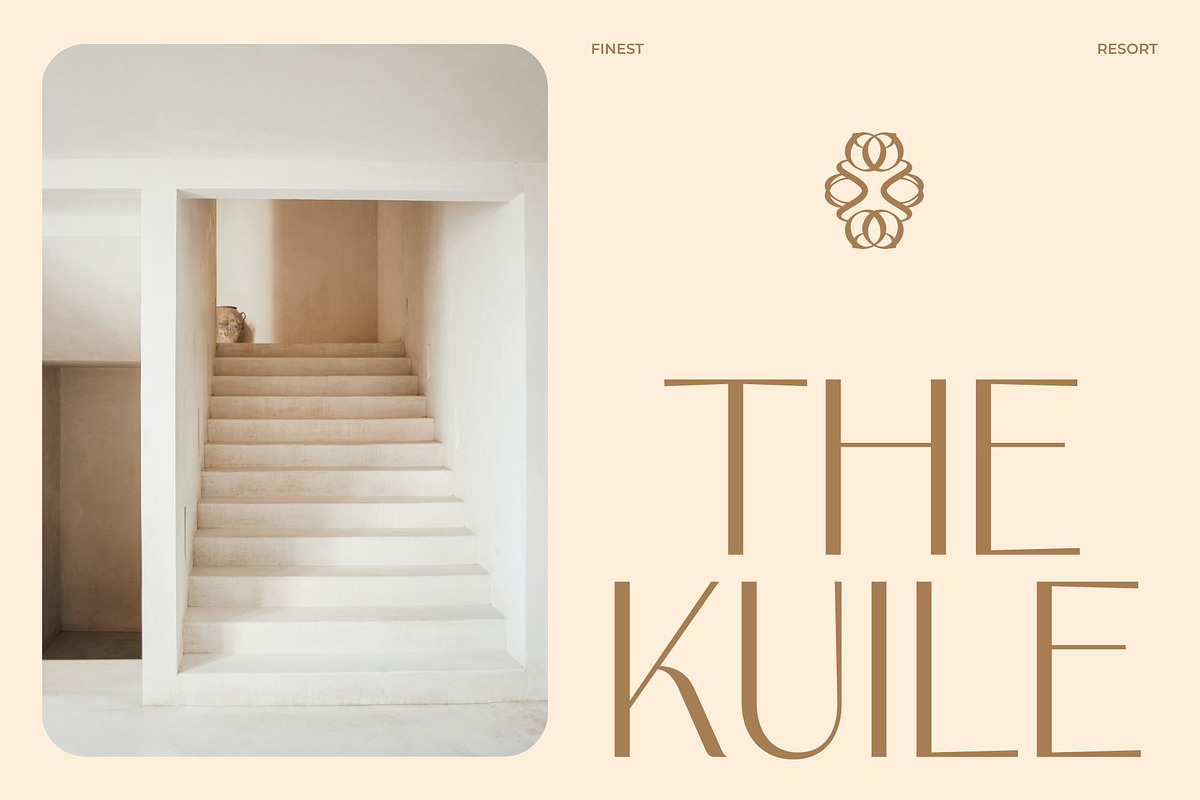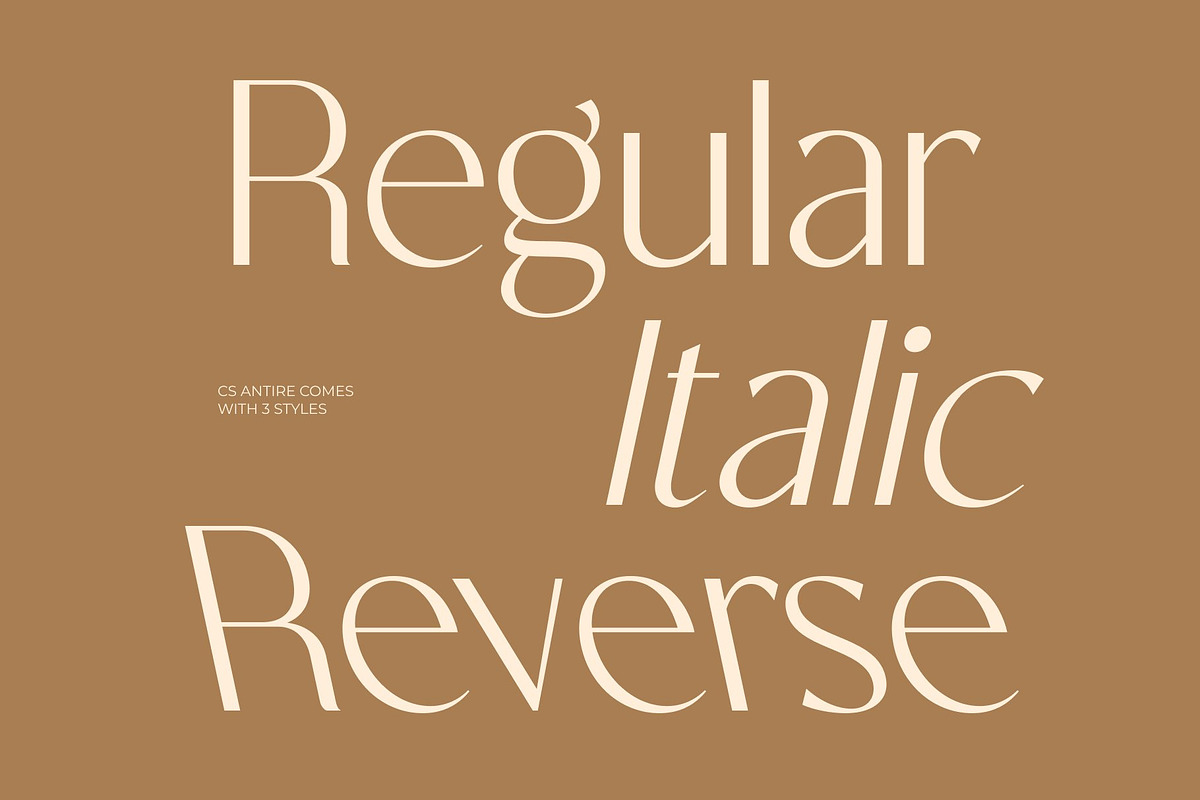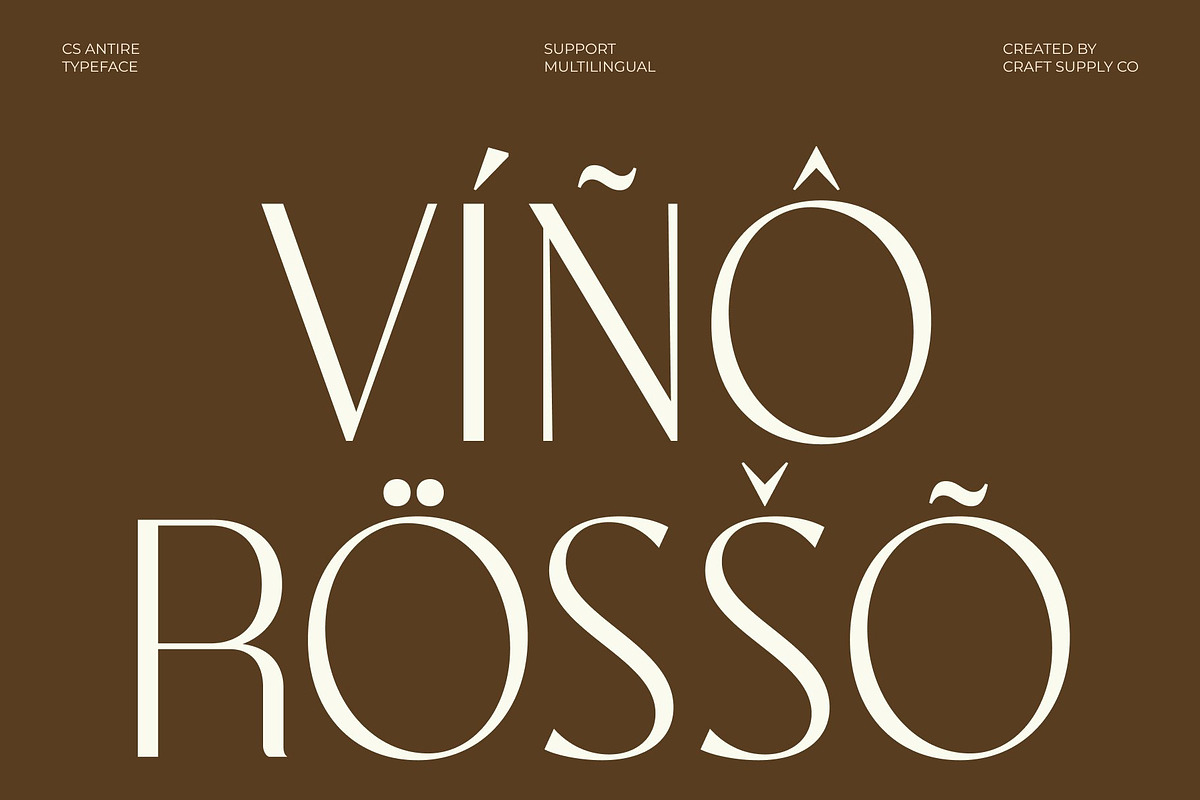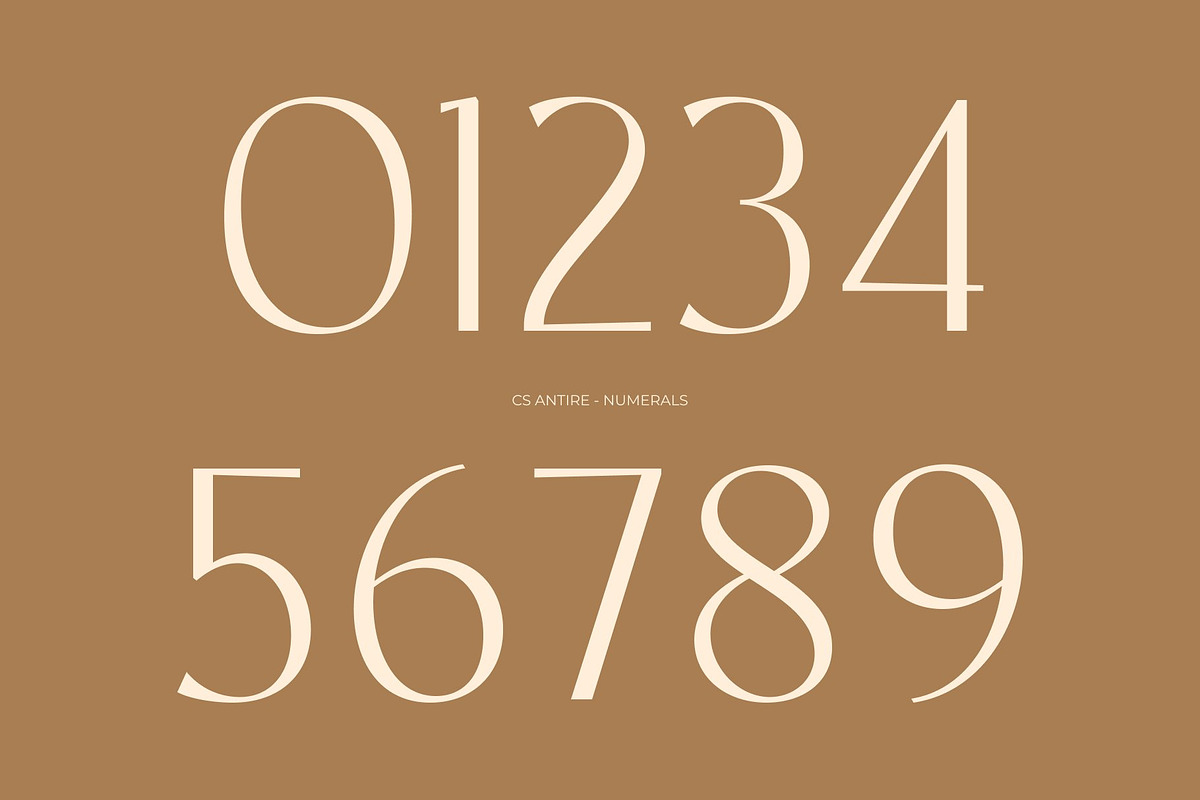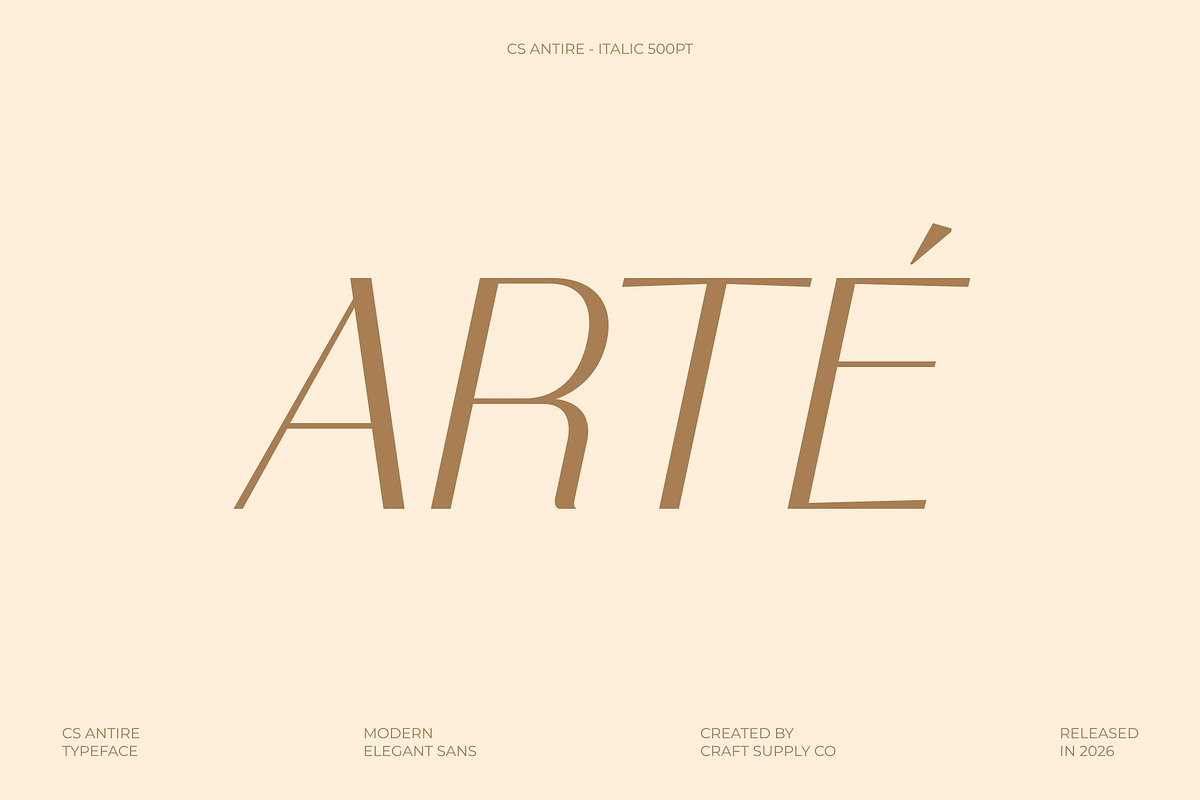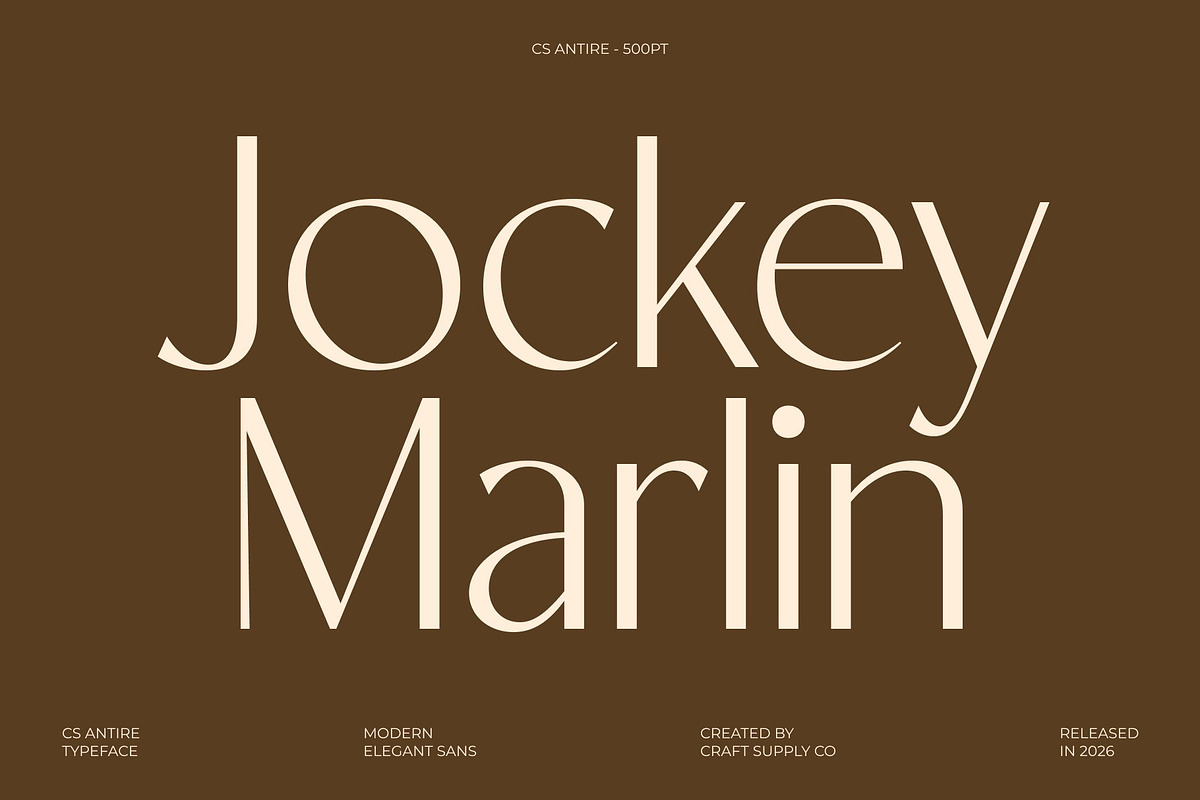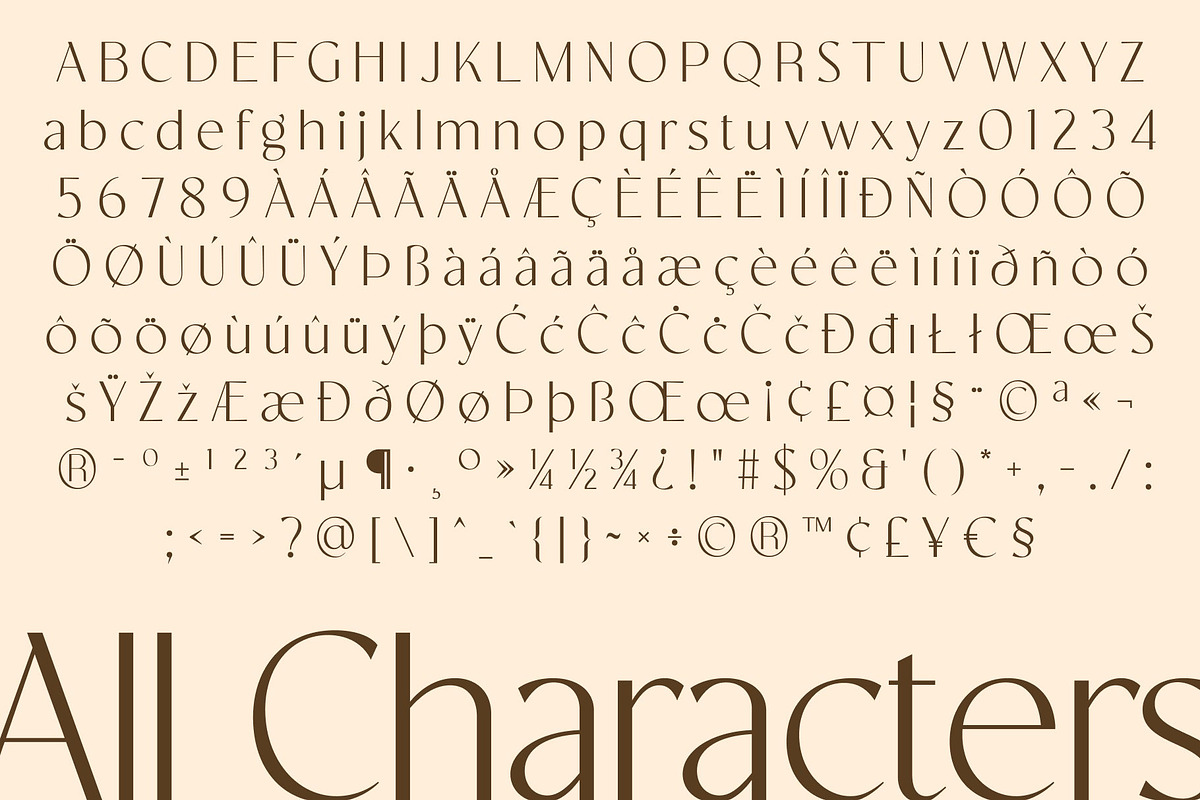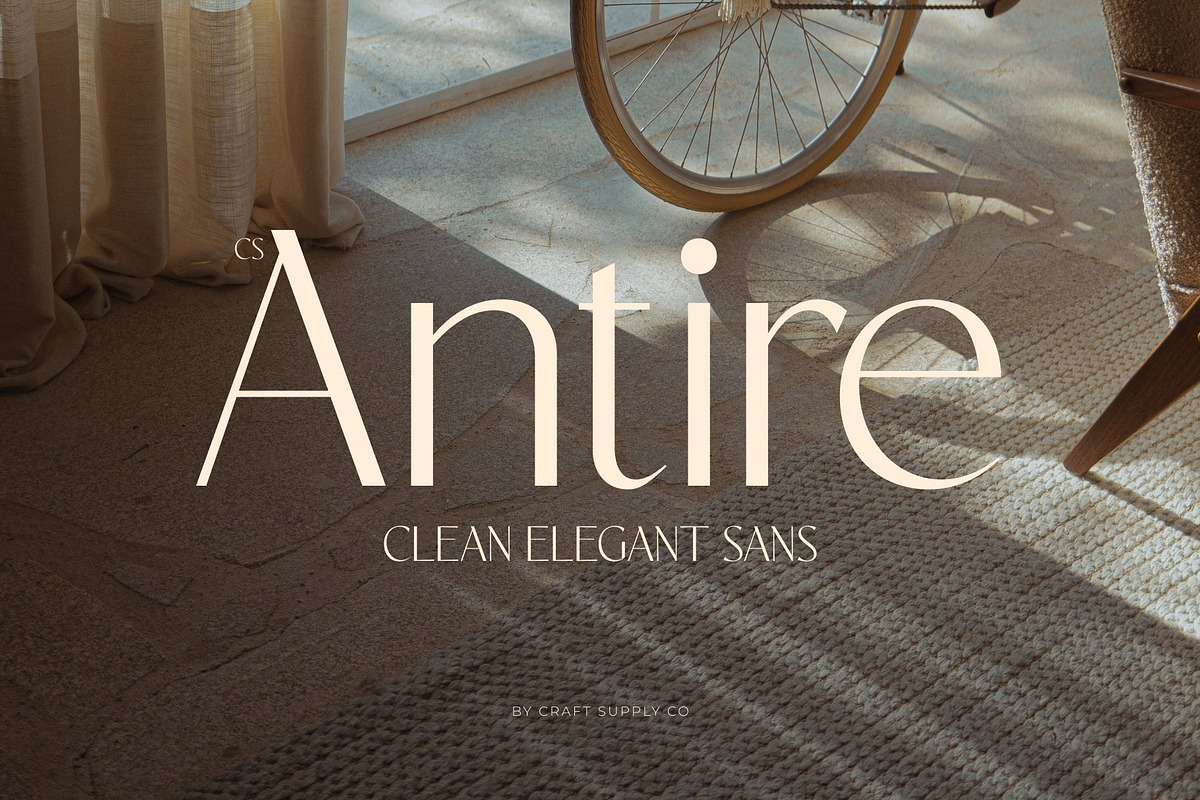
CS Antire – Clean Sans Serif
CS Antire – Modern Sans Serif with Confident Luxury
Modern Sans Serif with Clean Strength This is a modern sans serif font designed to express clarity, confidence, and refined sophistication. With its clean structure and balanced proportions, this typeface delivers a sleek visual voice that feels contemporary and polished. It is crafted for designers who want typography that communicates strength while maintaining an elegant and premium tone.
Precision Shapes with Contemporary Appeal Each letterform is built with smooth geometry and precise detailing, creating a harmonious and highly readable appearance. The balanced spacing and crisp lines ensure excellent performance across both print and digital media. This careful construction gives this font a modern personality that feels fresh, professional, and visually refined.
Strong Presence with Elegant Character This font combines minimalism with a confident presence, making it perfect for projects that demand a luxurious yet modern aesthetic. Its clean shapes create a sense of authority, while the subtle elegance adds a high-end feel. This balance allows the font to stand out without overpowering the design.
Perfect for Luxury Fashion, Posters, and Editorial Spreads From fashion branding and premium posters to editorial layouts and modern campaigns, this font offers a versatile typographic solution. Its blend of strength, clarity, and contemporary luxury ensures your designs appear stylish, confident, and visually compelling.
CS Antire Regular
CS Antire Italic
CS Antire Reverse Italic